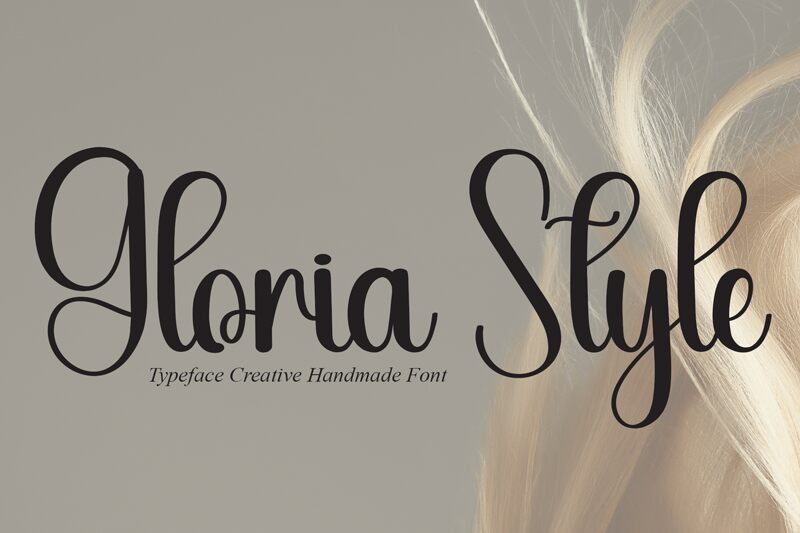
Gloria Style
Gloria Style font, designed by Andi Moz, is a delightful handwritten display font exuding warmth and charm. Its playful curves and fluid strokes create an inviting aesthetic, perfect for adding a personal touch to any design project.
This sweet and friendly font excels in crafting wedding invitations, greeting cards, or any creative endeavor that calls for a whimsical flair. Not only is it visually appealing, but the Gloria Style font also offers versatility for various applications.
Ideal for designers seeking a free font download that seamlessly blends fun with elegance-Gloria Style promises to enhance your design work with its unique character.